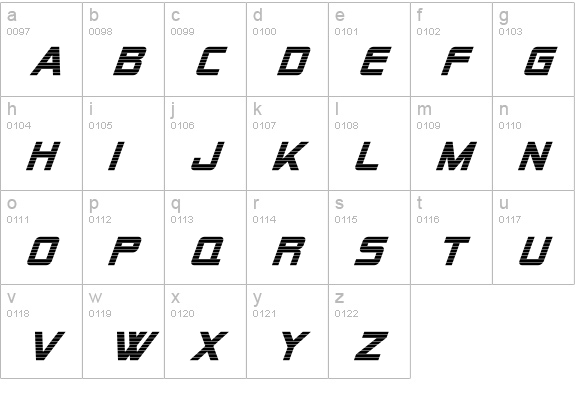
Alien Encounters Bold Italic is a strong, high-contrast, italic variant in the Alien typeface family \xE2\x80\x94 well suited to headlines, attention-grabbing titles, and strong calls-to-action.
Introducing Alien Encounters Bold Italic font, a futuristic and otherworldly typeface that will transport your designs to outer space and beyond. This striking font features bold strokes and italicized angles, giving off an extraterrestrial vibe that is perfect for science fiction projects, gaming graphics, and futuristic branding. With its unique and eye-catching design, Alien Encounters Bold Italic font is sure to make your text stand out in any project. Whether you're creating posters for a sci-fi movie marathon or designing a logo for a cutting-edge tech company, this font will add a touch of alien sophistication to your work. And the best part? Alien Encounters Bold Italic font is available for free download at FontsMarket.com! So go ahead and give your designs a cosmic twist with this captivating typeface. Embrace the unknown and let your creativity soar with Alien Encounters Bold Italic font.